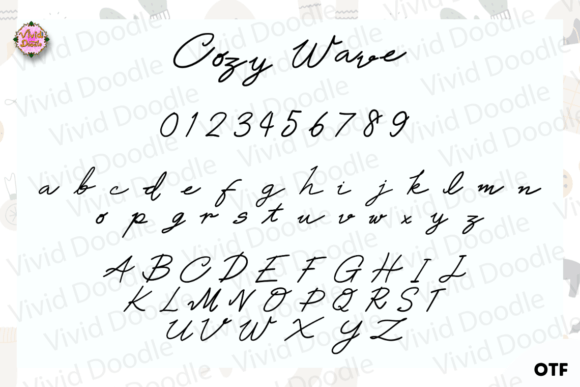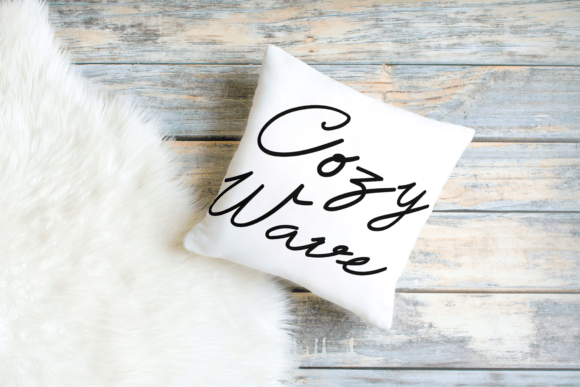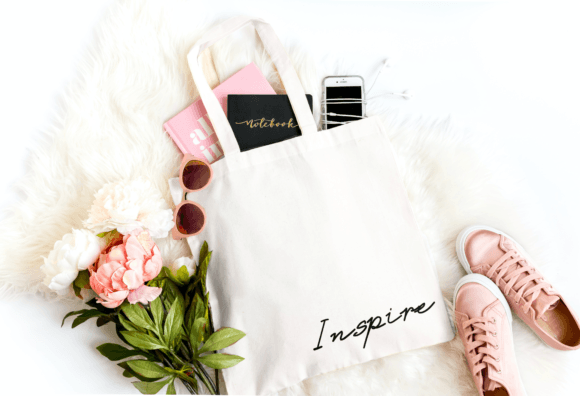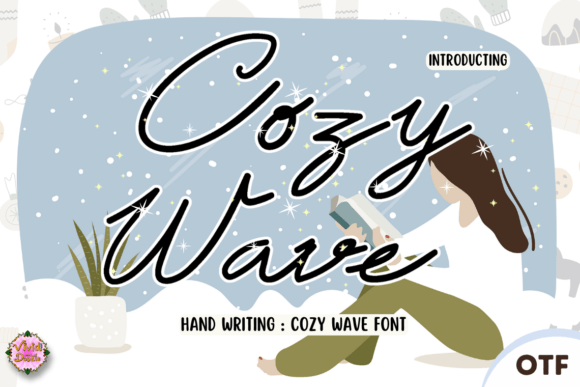
Introducing Cozywave Font: The Ultimate Holiday Companion for Designers and Crafters
The holiday season is upon us, and with it comes the desire to create festive and joyful content that captures the spirit of the season. As a designer or crafter, you’re likely on the lookout for the perfect font to add a touch of merriment to your projects. Look no further than Cozywave Font, a unique, hand-lettered font designed to radiate festive cheer and bring warmth to your creations.
A Font that Embodies the Holiday Spirit
Cozywave Font is a newly crafted font, thoughtfully designed to evoke the joy and magic of the holiday season. Its enchanting and exclusive design makes it the perfect addition to any project, from holiday cards and invitations to festive packaging and marketing materials. With Cozywave Font, you can add a touch of seasonal sparkle to your work and make it truly unforgettable.
Adaptable and Versatile
While Cozywave Font is specially created for the holiday season, its versatility makes it suitable for a wide range of projects beyond just holiday-themed content. Whether you’re working on a branding project, creating social media graphics, or designing a website, Cozywave Font can elevate your work and add a touch of warmth and personality. Its adaptability ensures that it can be used in various contexts, from formal to informal, and can be paired with a variety of design styles.
What Makes Cozywave Font Special?
- Unique Hand-Lettered Design: Cozywave Font boasts a distinctive, hand-lettered design that sets it apart from other fonts. Its characters are carefully crafted to convey a sense of festivity and joy.
- Enchanting and Exclusive: This font is a one-of-a-kind creation, designed to bring a touch of magic to your projects. Its exclusive design ensures that your work will stand out from the crowd.
- High-Quality: This font is designed to deliver high-quality results, with crisp and clear characters that will look great in any project.
How to Use Cozywave Font in Your Projects
Cozywave Font can be used in a variety of projects, including:
- Holiday Cards and Invitations: Add a touch of festive cheer to your holiday cards and invitations with Cozywave Font.
- Festive Packaging: Use Cozywave Font to create eye-catching and festive packaging for your products.
- Marketing Materials: Add a touch of holiday magic to your marketing materials, such as flyers, brochures, and social media graphics.
- Web Design: Use Cozywave Font to create a festive and welcoming website design that captures the spirit of the season.
- Experiment with Different Sizes and Colors: Cozywave Font looks great in a variety of sizes and colors. Experiment with different combinations to find the one that works best for your project.
- Pair with Other Design Elements: Cozywave Font pairs well with a variety of design elements, such as illustrations, graphics, and textures. Experiment with different combinations to find the one that works best for your project.
- Use in Combination with Other Fonts: Cozywave Font can be used in combination with other fonts to create a unique and visually appealing design.
Cozywave Font is a unique and enchanting font that is sure to bring a touch of festive cheer to your projects. Its adaptability, versatility, and exclusive design make it the perfect addition to any design or crafting project. Whether you’re working on a holiday-themed project or just want to add a touch of warmth and personality to your work, Cozywave Font is the perfect choice. So why wait? Download Cozywave Font today and experience the merriment of the season in your designs!